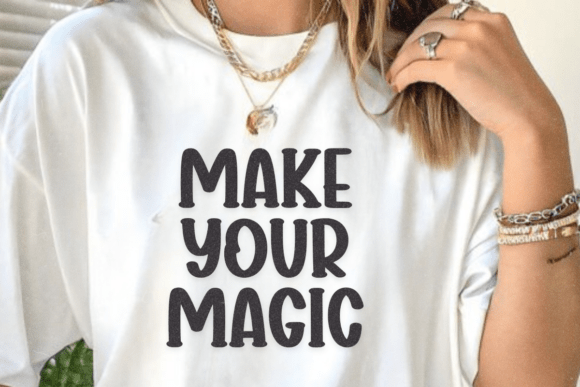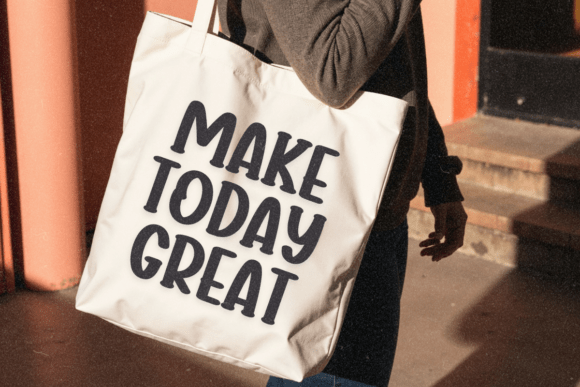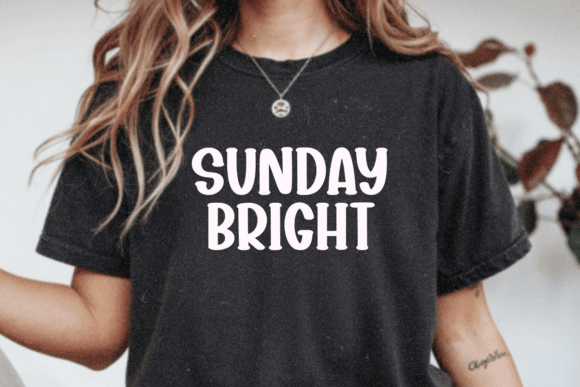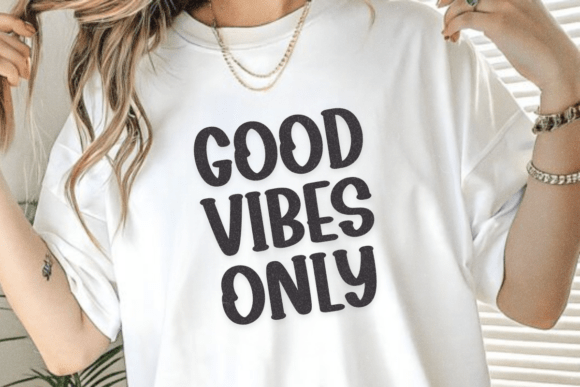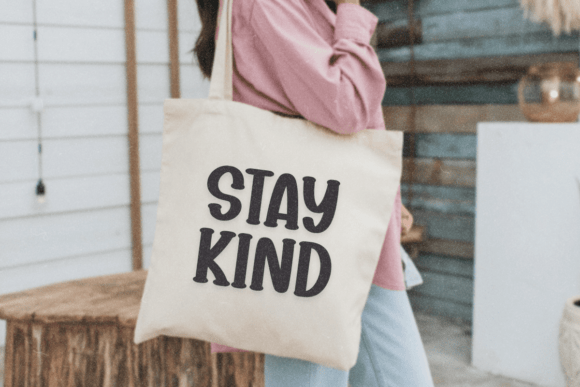
Bubble Candy Font: Elevate Your Designs with Modern Elegance and Bold Minimalism
In the world of typography, few fonts manage to strike a balance between modern elegance and bold minimalism. However, Bubble Candy achieves this delicate balance, making it a standout choice for designers and crafters. This captivating font is perfectly contoured to create a visually striking aesthetic, bringing a remarkable twist to any creative project.
The Versatility of Bubble Candy
One of the key benefits of Bubble Candy is its versatility. This font is not limited to a specific medium or application. Instead, it can be used across various platforms, making it a popular choice for:
- Print mediums: Add a touch of modern elegance to your brochures, posters, and flyers.
- T-shirt designs: Create eye-catching and stylish apparel with Bubble Candy.
- Inspirational quotes: Emphasize the importance of motivational words with a bold and striking font.
- Literary arts: Add a touch of sophistication to your book covers, journals, and poetry.
- Crisp headlines: Make your headlines stand out with a modern and elegant font.
- Evocative photography accents: Add a touch of style to your photography with Bubble Candy.
Bubble Candy offers endless creative possibilities for designers and crafters. Whether you’re seeking to:
- Enhance your decoration style: Use Bubble Candy to add a touch of modern elegance to your home decor, party invitations, or event branding.
- Emphasize your branding identity: Create a strong brand presence with a unique and recognizable font.
- Create impactful logos: Make your logo stand out with a bold and striking font.
- Express a Valentine sentiment: Use Bubble Candy to create romantic and memorable Valentine’s Day designs.
Why Choose Bubble Candy?
So, why choose Bubble Candy over other fonts? Here are a few reasons:
- Unique aesthetic: Bubble Candy brings a remarkable twist to any creative project, making it stand out from the crowd.
- Versatility: This font can be used across various platforms and mediums.
- Easy to read: Despite its bold and modern design, Bubble Candy is easy to read, making it perfect for body text and headlines.
- Customizable: Experiment with different colors, sizes, and styles to make Bubble Candy your own.
Tips for Using Bubble Candy
To get the most out of Bubble Candy, here are a few tips:
- Experiment with colors: Try out different colors to match your brand or design aesthetic.
- Play with sizes: Use Bubble Candy in various sizes to create visual hierarchy and emphasis.
- Mix and match: Combine Bubble Candy with other fonts to create a unique and interesting typography.
In conclusion, Bubble Candy is a captivating font that brings a remarkable twist to any creative project. Its versatility, unique aesthetic, and ease of use make it a popular choice for designers and crafters. Whether you’re seeking to enhance your decoration style, emphasize your branding identity, create impactful logos, or express a Valentine sentiment, Bubble Candy offers a refreshing artistic expression to turn the ordinary into something memorable.